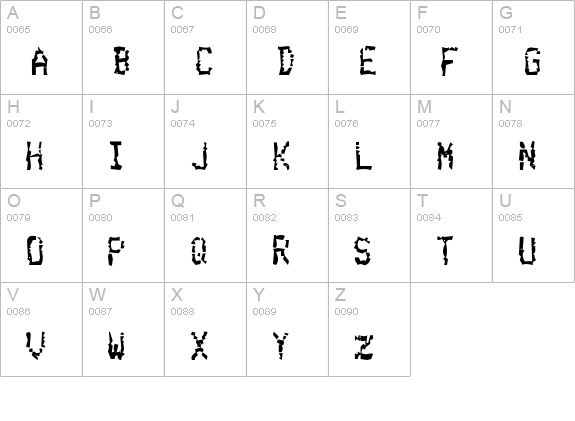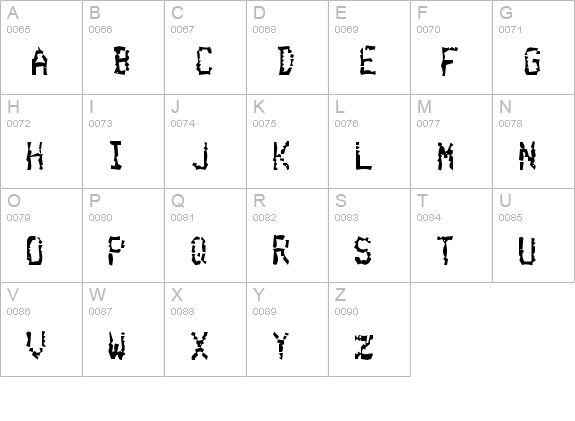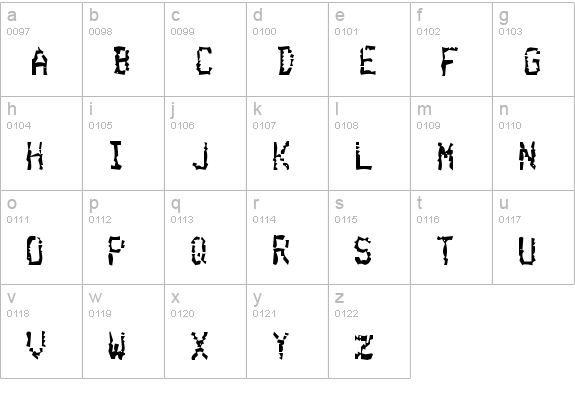
Belching Up Salisbury Steak Font Details
Belching Up Salisbury Steak font is a quirky and playful typeface that exudes a unique charm. With its irregular shapes and bold strokes, this font is sure to make a statement in any design project. The whimsical style of Belching Up Salisbury Steak font is perfect for adding a touch of fun and personality to your creations. Whether you're working on a poster, logo, or social media graphic, this font will bring a sense of whimsy and creativity to your work. Its distinctive design sets it apart from other fonts, making it a versatile choice for a variety of projects. Best of all, Belching Up Salisbury Steak font is completely free to download at FontsMarket.com. So go ahead and add this delightful font to your collection today and let your creativity shine!